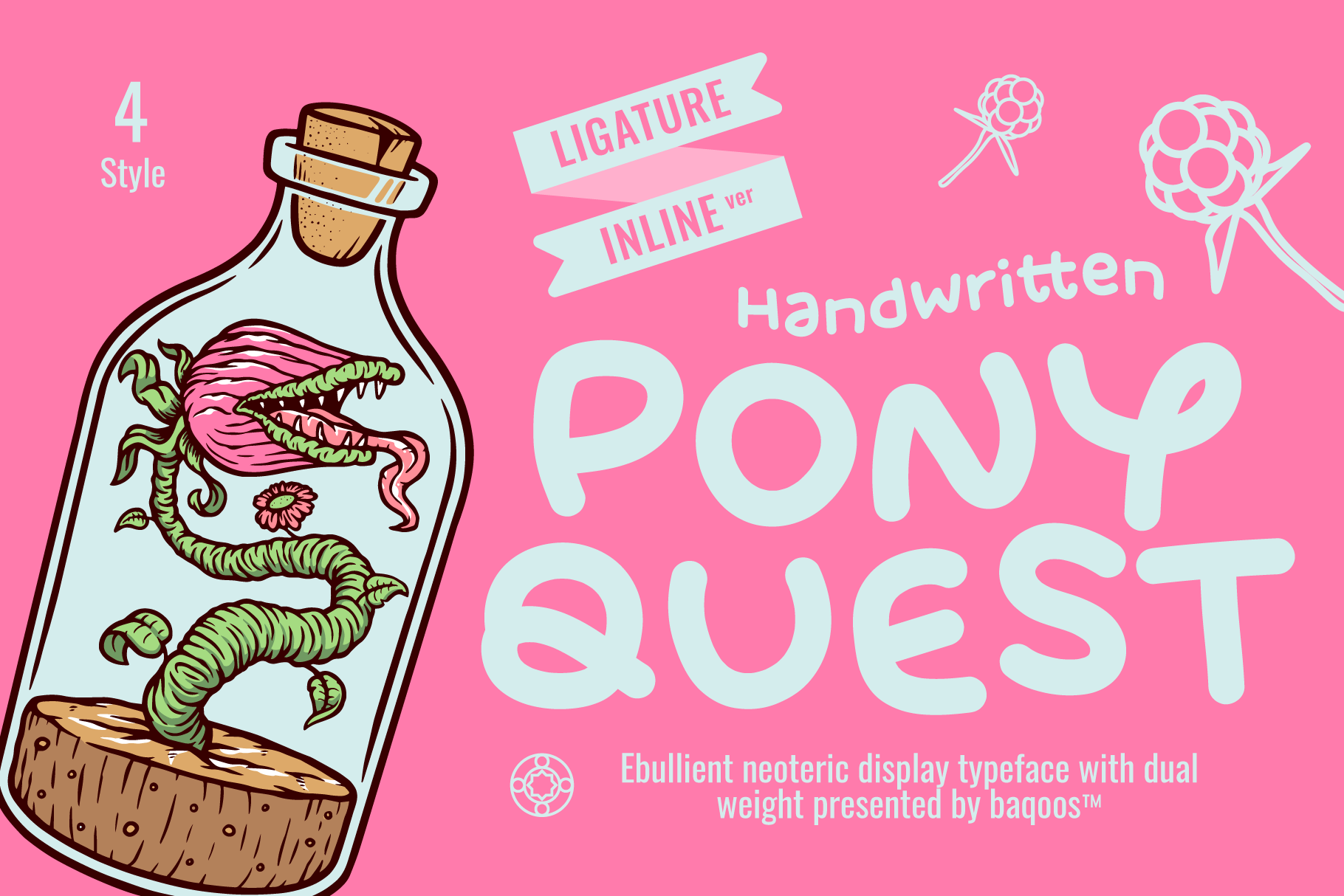
Pony Quest Font
Pony Quest is an ebullient neoteric handwritten typeface apt for headline, editorial, branding, packaging, printed materials and typographic applications. 200+ glyphs including punctuation and numerical.